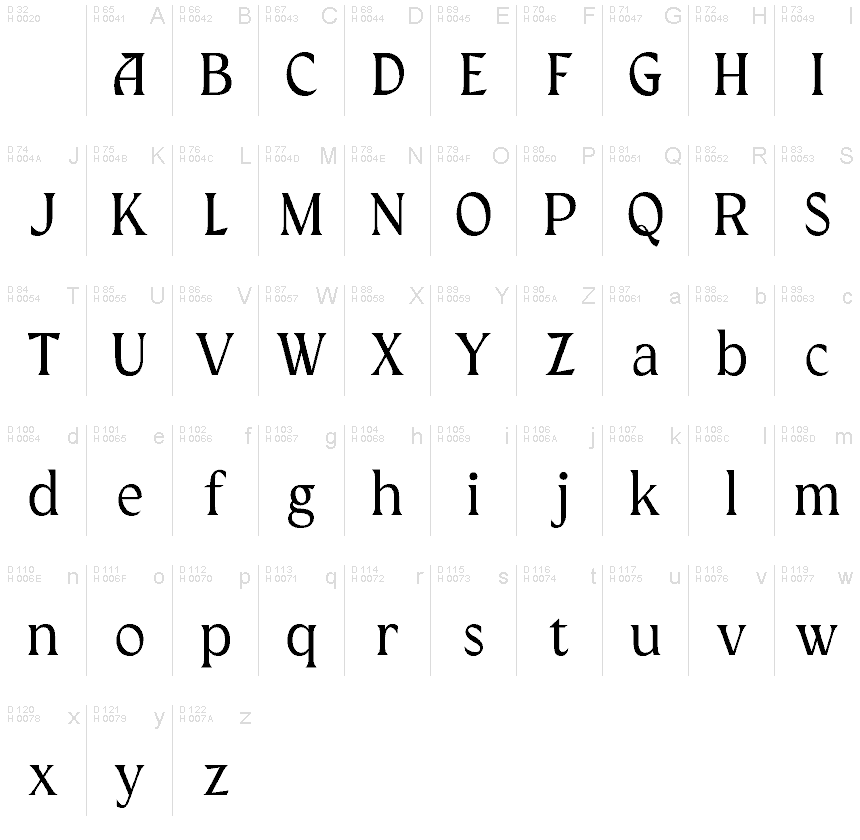
CS Amanda Demo Regular
CS Amanda font by Craft Supply Co. is a free vintage serif font with all the elegance, appeal, and charm of fonts from the previous century. It features an interesting and fun take between mildly serious business-like typography and decorative letter styles most suitable for a wide variety of designs.